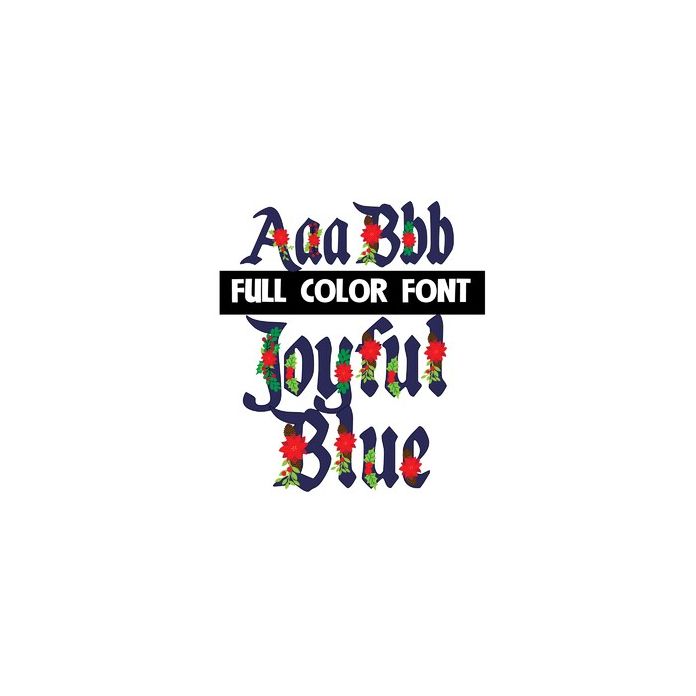
This full-color font features navy blue calligraphy-style lettering with poinsettias throughout. There is a an alt version of lowercase lettering without flower you can access through your system's or Silhouette's glyph map.